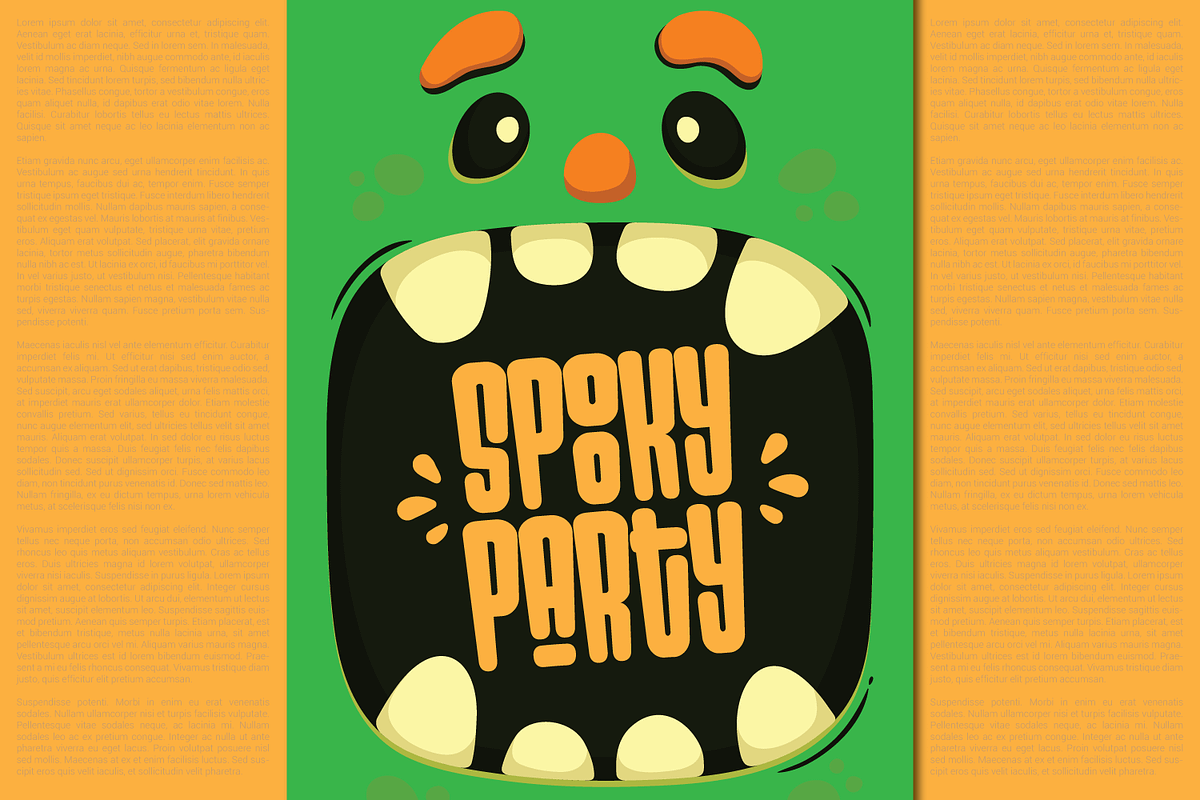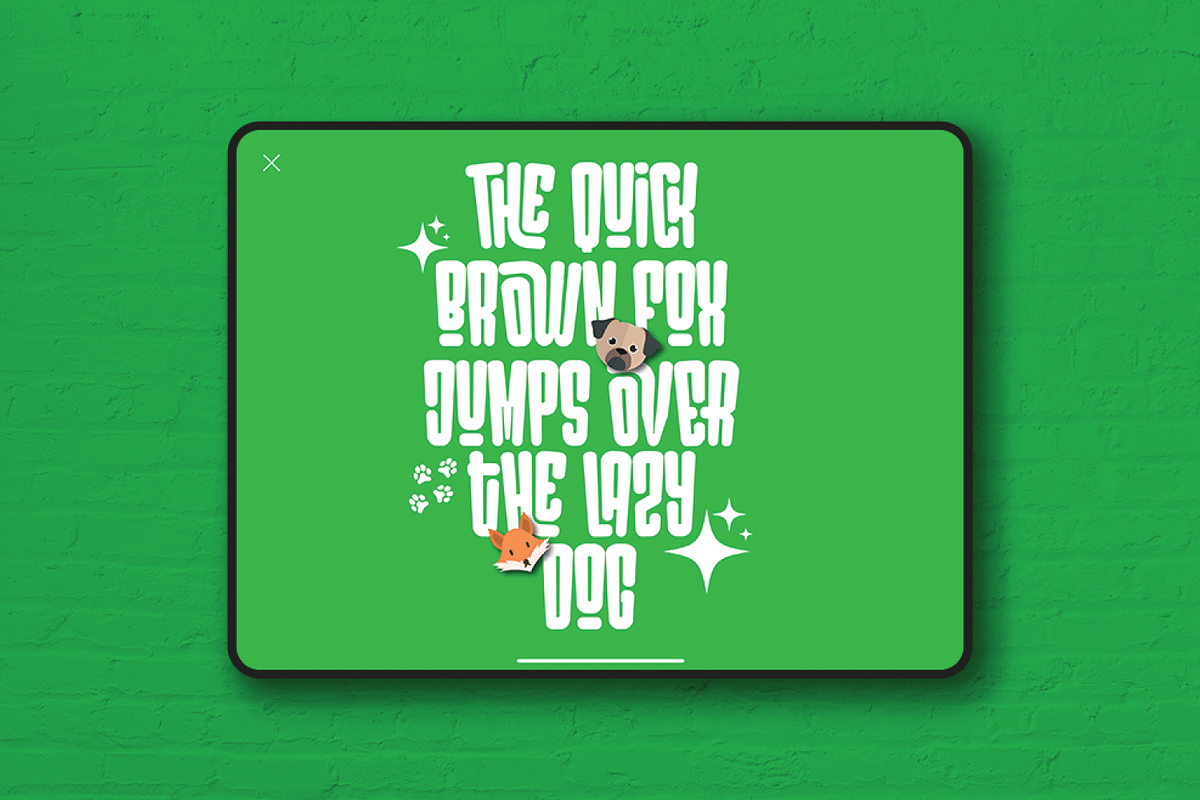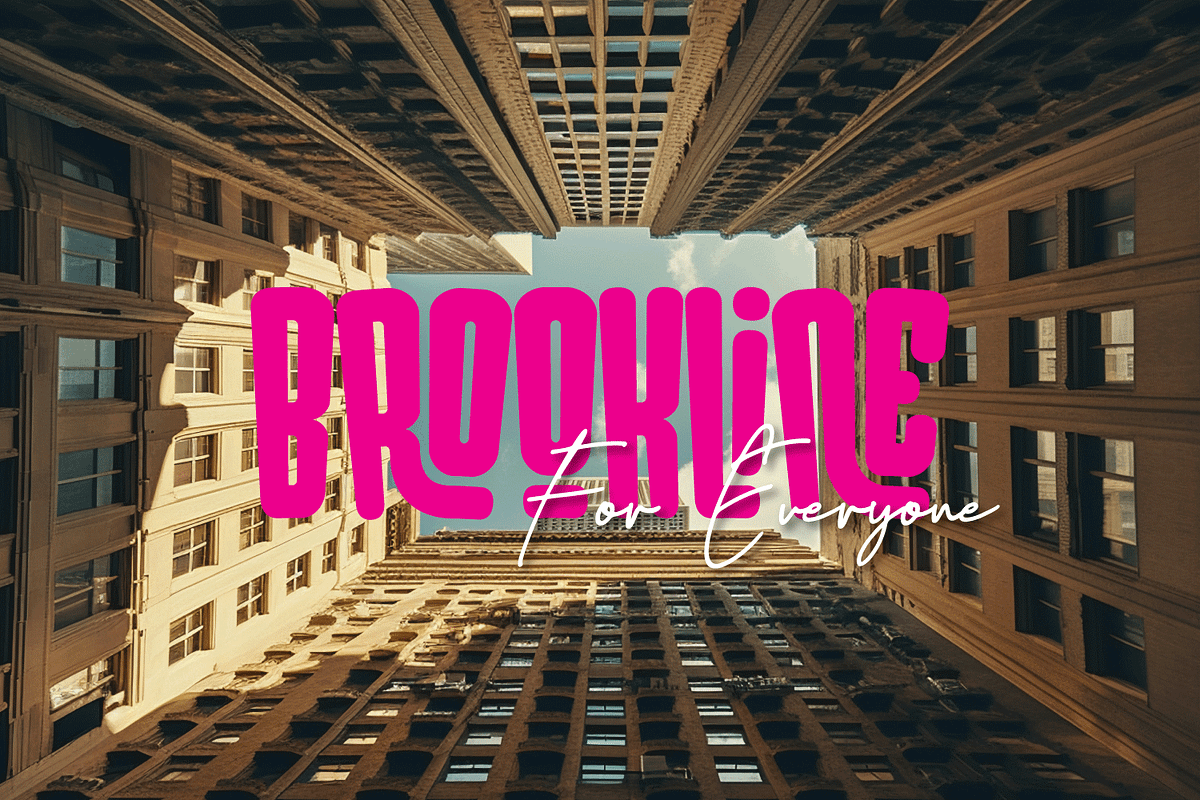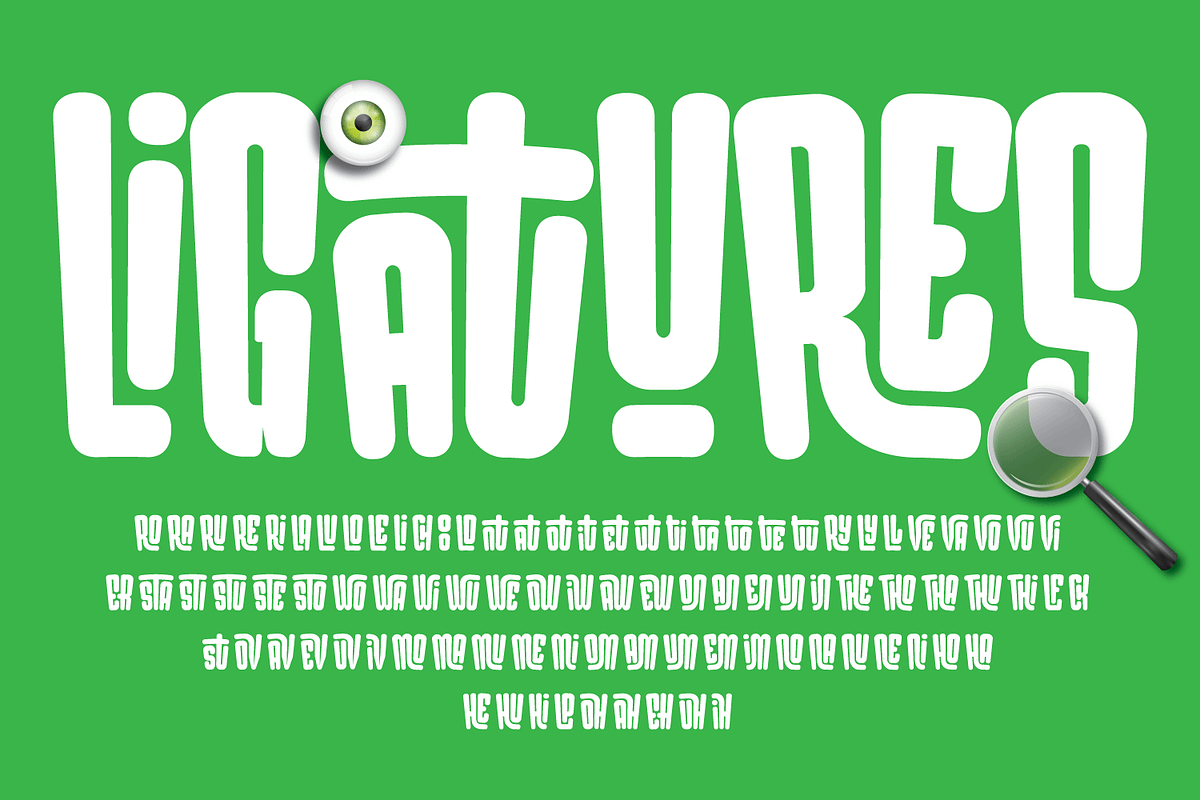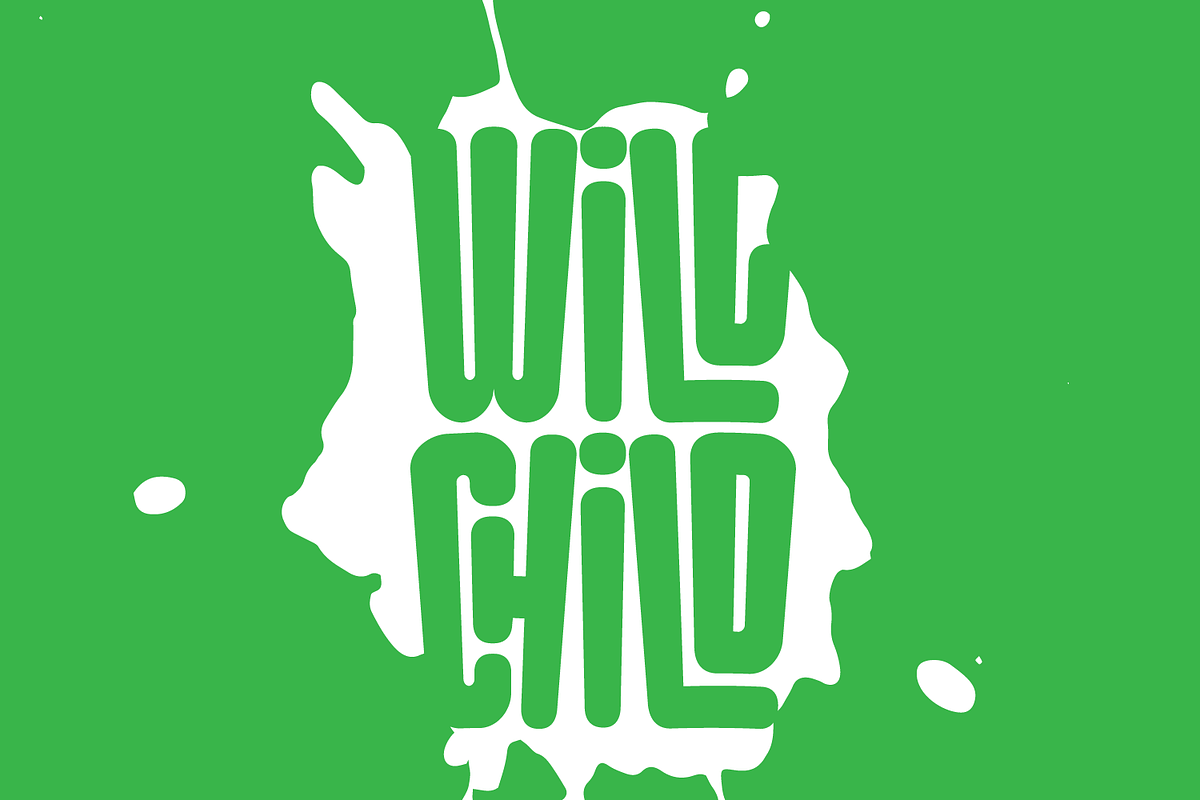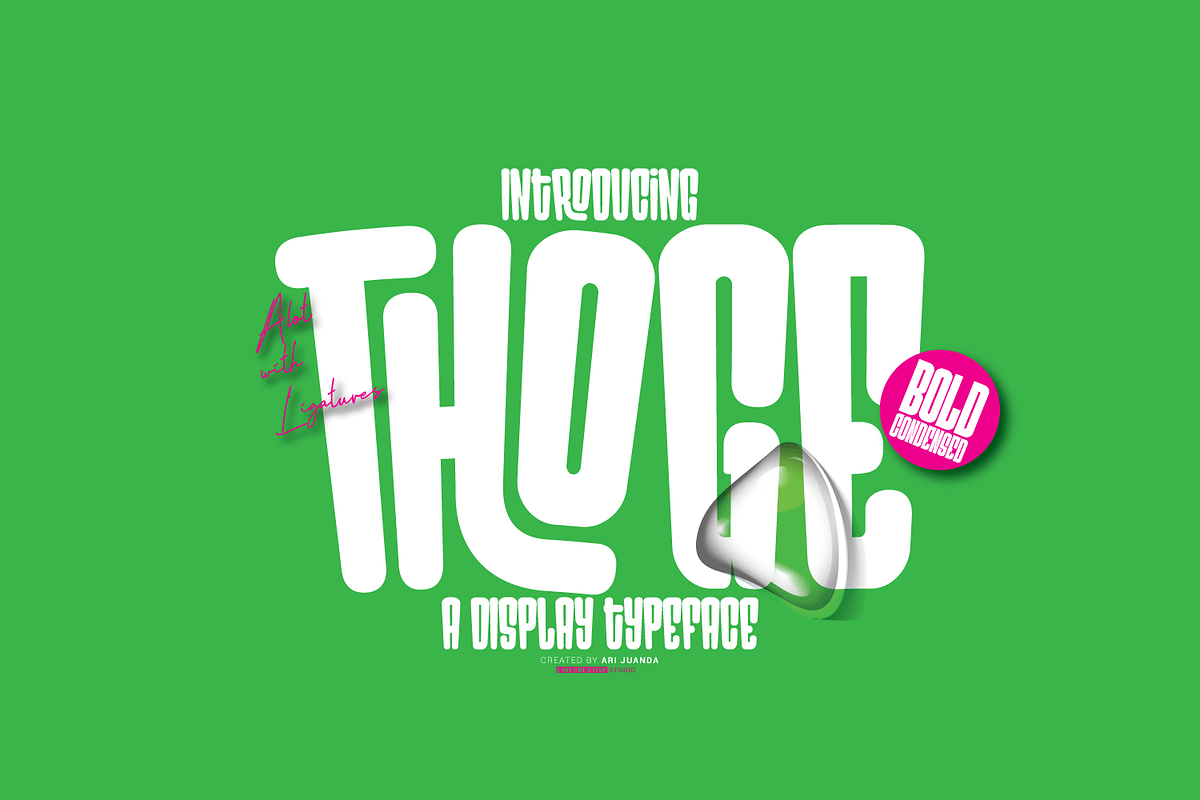
Thoge
'Thoge' font is a playful typeface inspired by rubber balloons, complete with ligatures, giving a cheerful impression to every design.
- Supports Multi linguage (Latin Western Europe),
- Numbers and Punctuation
- Ligature charaters